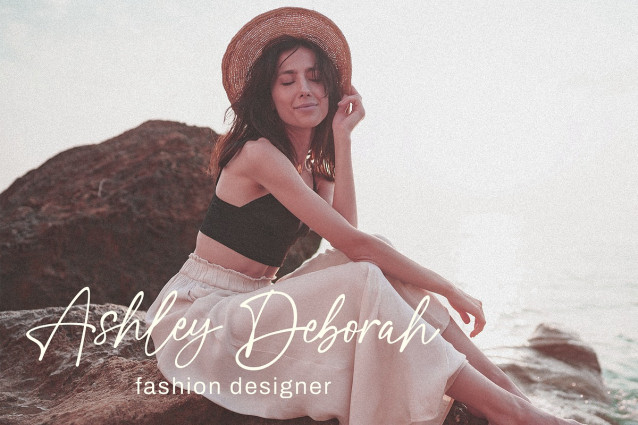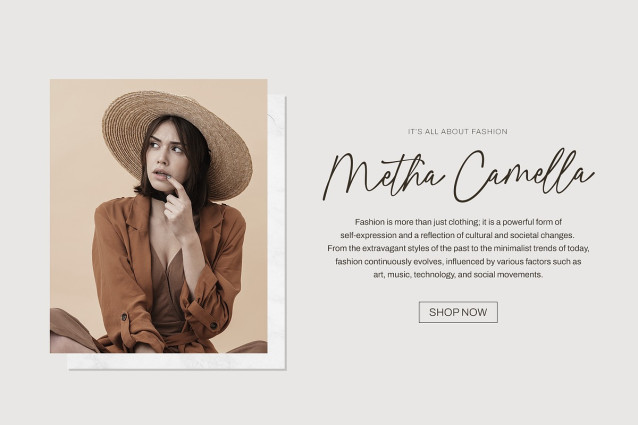
Hoseland Handwritten Font
Hoseland Handwritten Font is a beautifully crafted handwritten font with a modern and stylish touch. Designed with smooth curves and elegant strokes, this font exudes sophistication while maintaining a natural and personal feel. With over 250+ glyphs, it provides versatility for any design project.